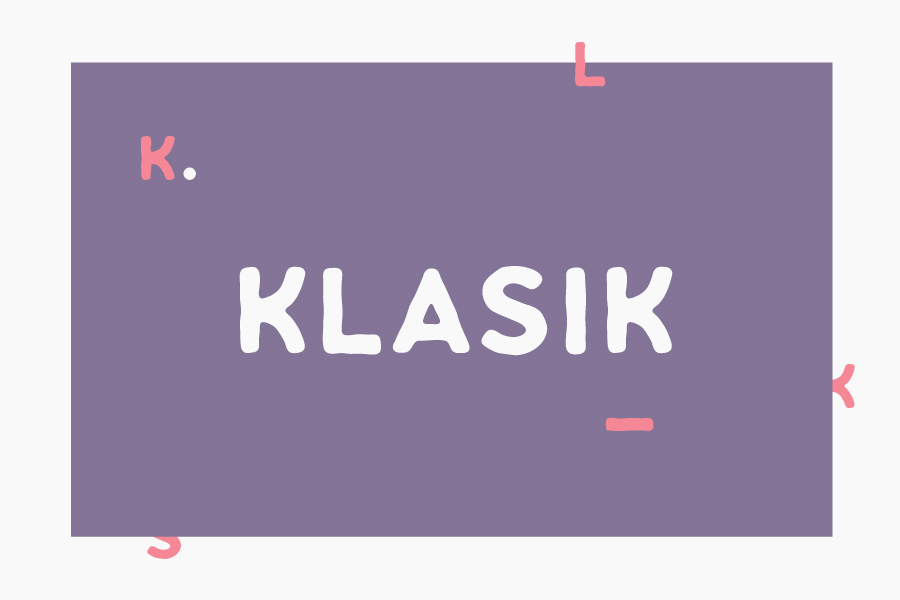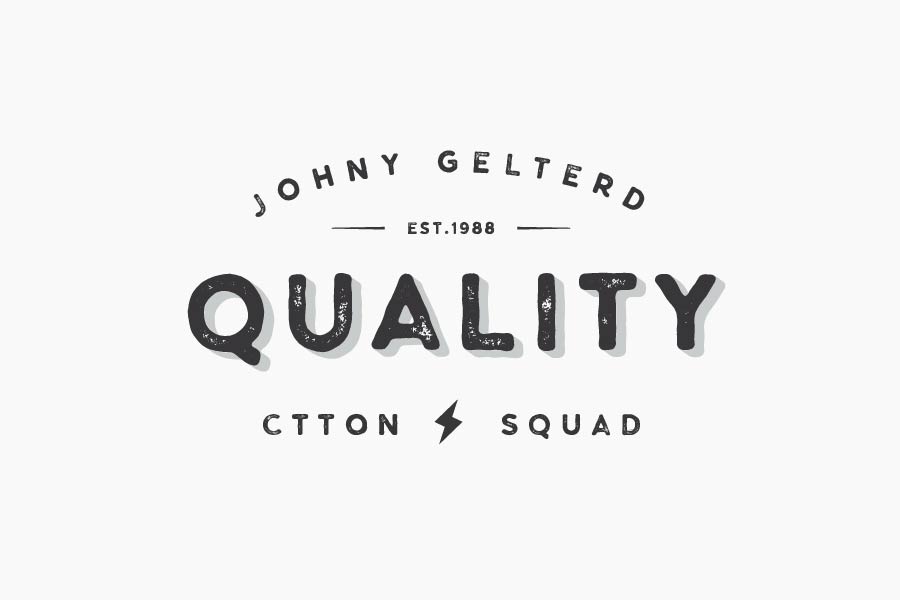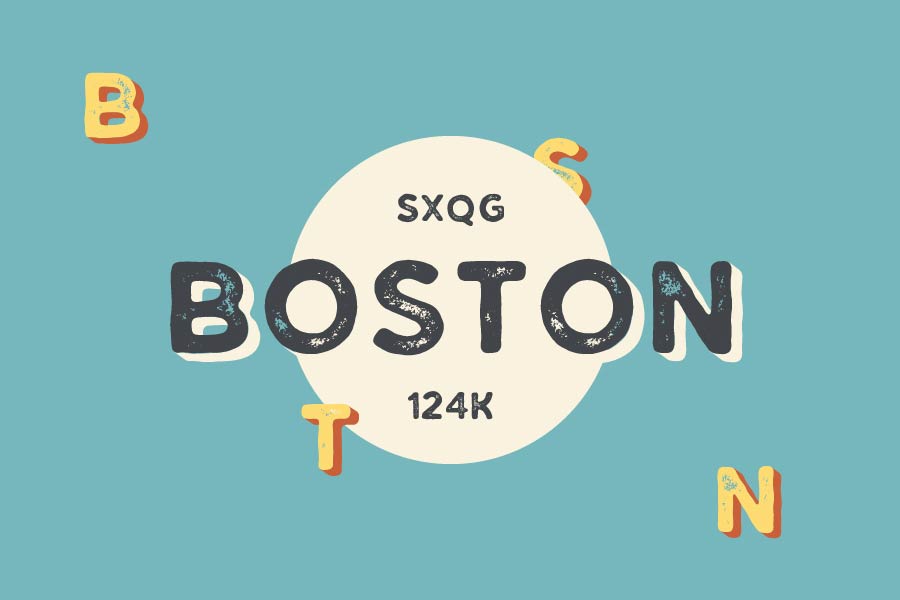
Klasik is a small font family that comes with 3 distinctive styles: regular, rough and shadow. The characteristics of the font, for example the rough lines and rounded shapes are suitable for label, branding and logo designs and can bring out sense on old school and vintage feel.
- Styles: 3 (Regular, rough, shadow)